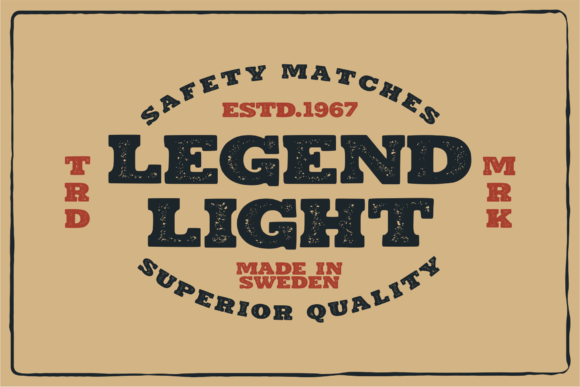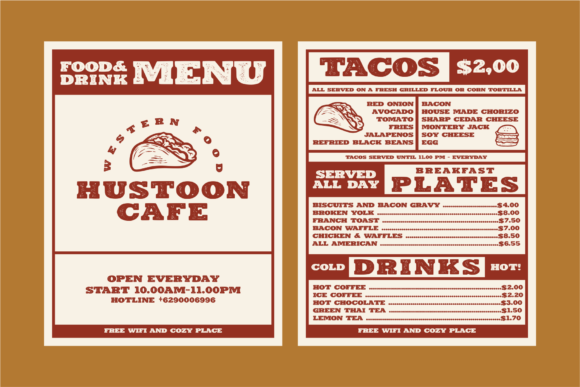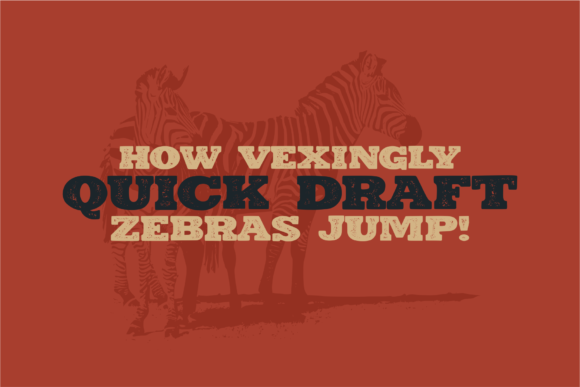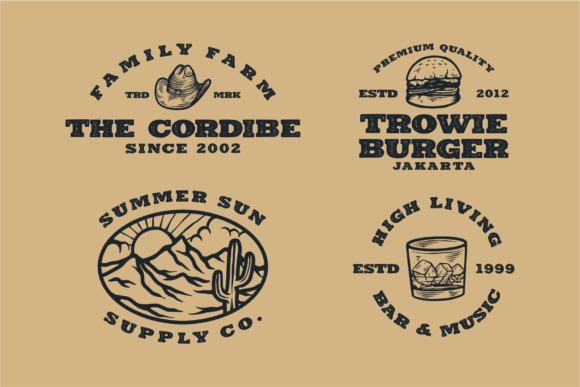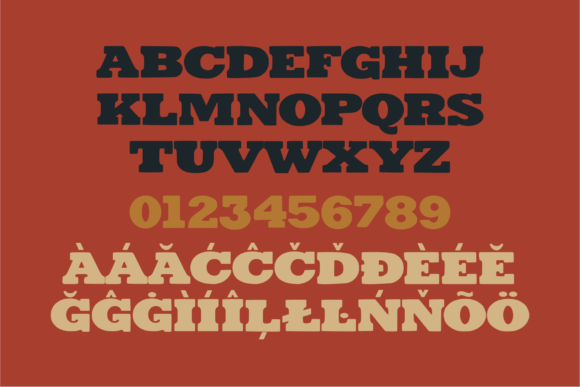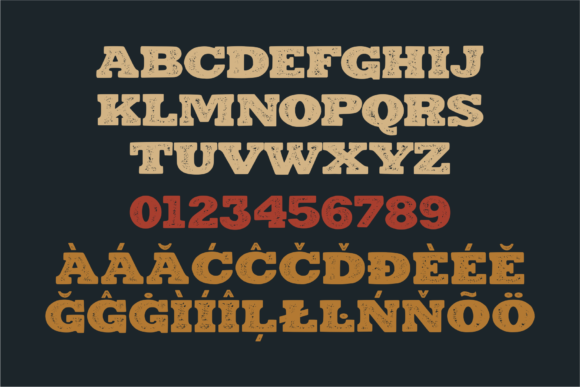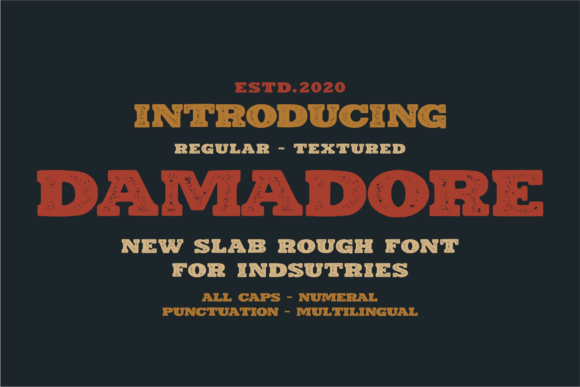
Damadore Font: The Ultimate Display Font for Creative Projects
Are you tired of using the same old fonts for your creative projects? Look no further than Damadore Font, a simple and chunky charactered display font that’s perfect for making your designs stand out. In this article, we’ll take a closer look at Damadore Font, its features, and how you can use it to elevate your designs.
What is Damadore Font?
Damadore Font is a display font that’s designed to make a statement. Its chunky characters and simple design make it perfect for a wide range of projects, from posters and flyers to logos and branding materials. The font is easy to read and understand, making it a great choice for designers who want to communicate their message clearly and effectively.
Key Features of Damadore Font
So, what makes Damadore Font so special? Here are some of its key features:
- Simple and Chunky Design: Damadore Font has a simple and chunky design that’s perfect for making a statement.
- Highly Versatile: The font can be used for a wide range of projects, from posters and flyers to logos and branding materials.
- Easily Readable: The font is easy to read and understand, making it perfect for designs that need to communicate a message clearly.
- Unique Character Set: Damadore Font has a unique character set that includes uppercase and lowercase letters, numbers, and punctuation marks.
How to Use Damadore Font in Your Designs
So, how can you use Damadore Font in your designs? Here are some ideas to get you started:
- Posters and Flyers: Use Damadore Font as a headline font to grab attention and draw people in.
- Logos and Branding Materials: Use Damadore Font as a logo font to create a unique and memorable brand identity.
- Social Media Graphics: Use Damadore Font to create eye-catching social media graphics that stand out in crowded feeds.
- Packaging Design: Use Damadore Font to create bold and eye-catching packaging designs that stand out on store shelves.
Why Choose Damadore Font?
So, why should you choose Damadore Font for your designs? Here are some reasons:
- Unique and Memorable: Damadore Font is a unique and memorable font that’s sure to make your designs stand out.
- Easily Customizable: The font is easily customizable, allowing you to adjust the size, color, and style to fit your design needs.
- High-Quality Design: Damadore Font is designed to high standards, ensuring that it looks great in any design.
Tips for Using Damadore Font Effectively
Here are some tips for using Damadore Font effectively in your designs:
- Use it as a Headline Font: Use Damadore Font as a headline font to grab attention and draw people in.
- Pair it with Other Fonts: Pair Damadore Font with other fonts to create a unique and interesting design.
In conclusion, Damadore Font is a simple and chunky charactered display font that’s perfect for making your designs stand out. Its highly versatile design, unique character set, and easily readable style make it a great choice for a wide range of projects. Whether you’re a designer, crafter, or DIY enthusiast, Damadore Font is a great addition to your creative toolkit.